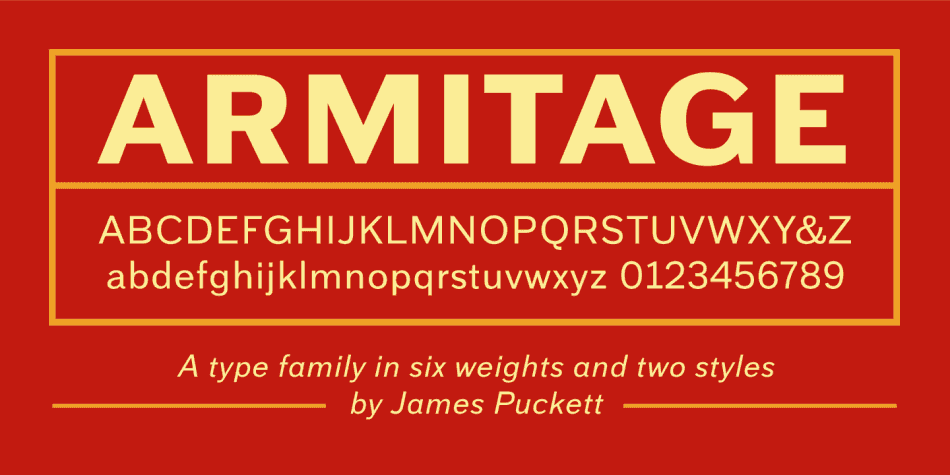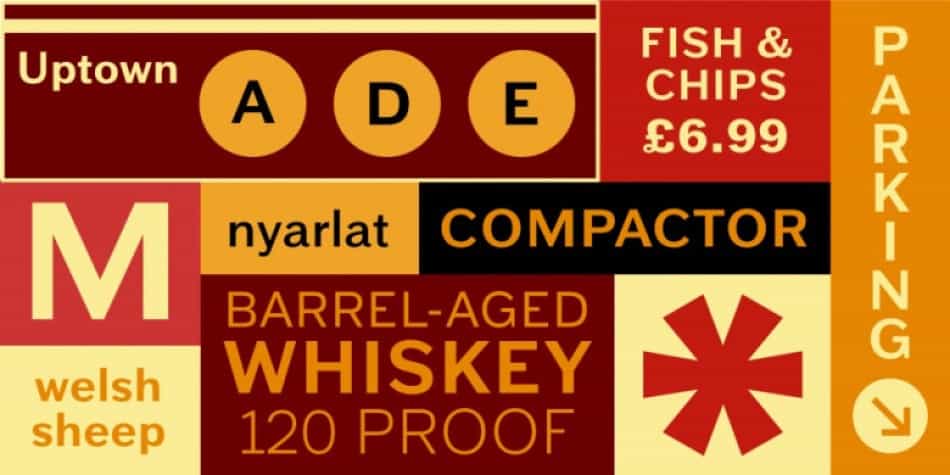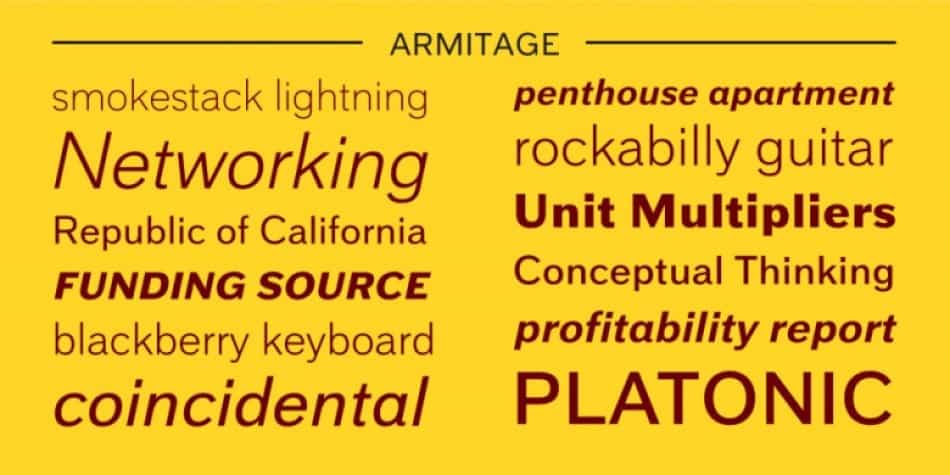
Armitage font family by Dunwich Type Founders is an elegant contemporary sans seriffont family with 12 styles that exude humane and robust qualities as well as classic American warmth.